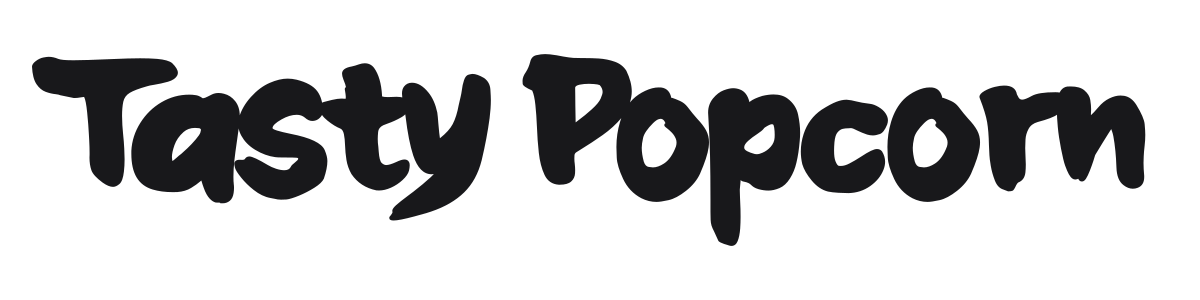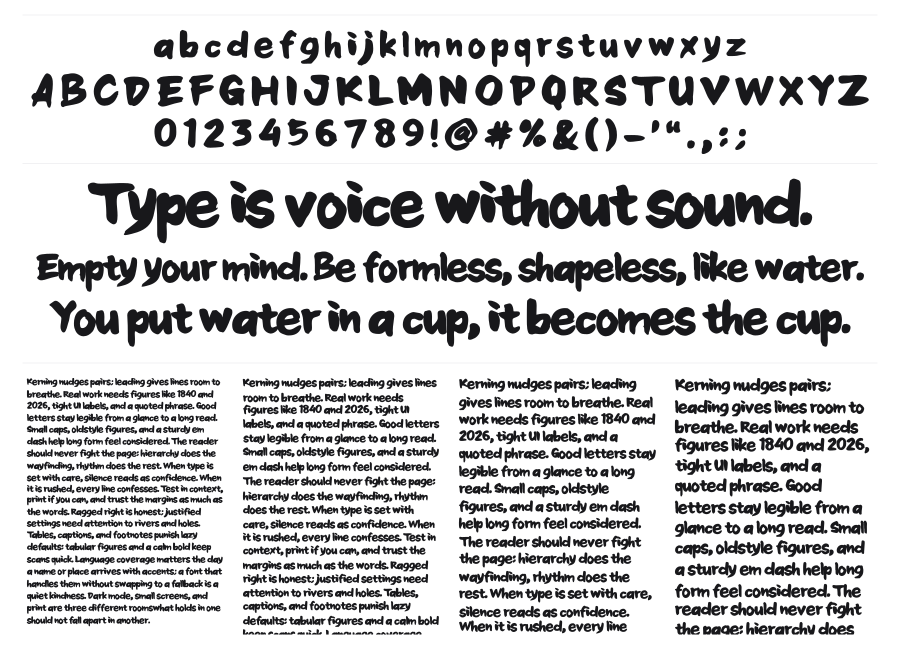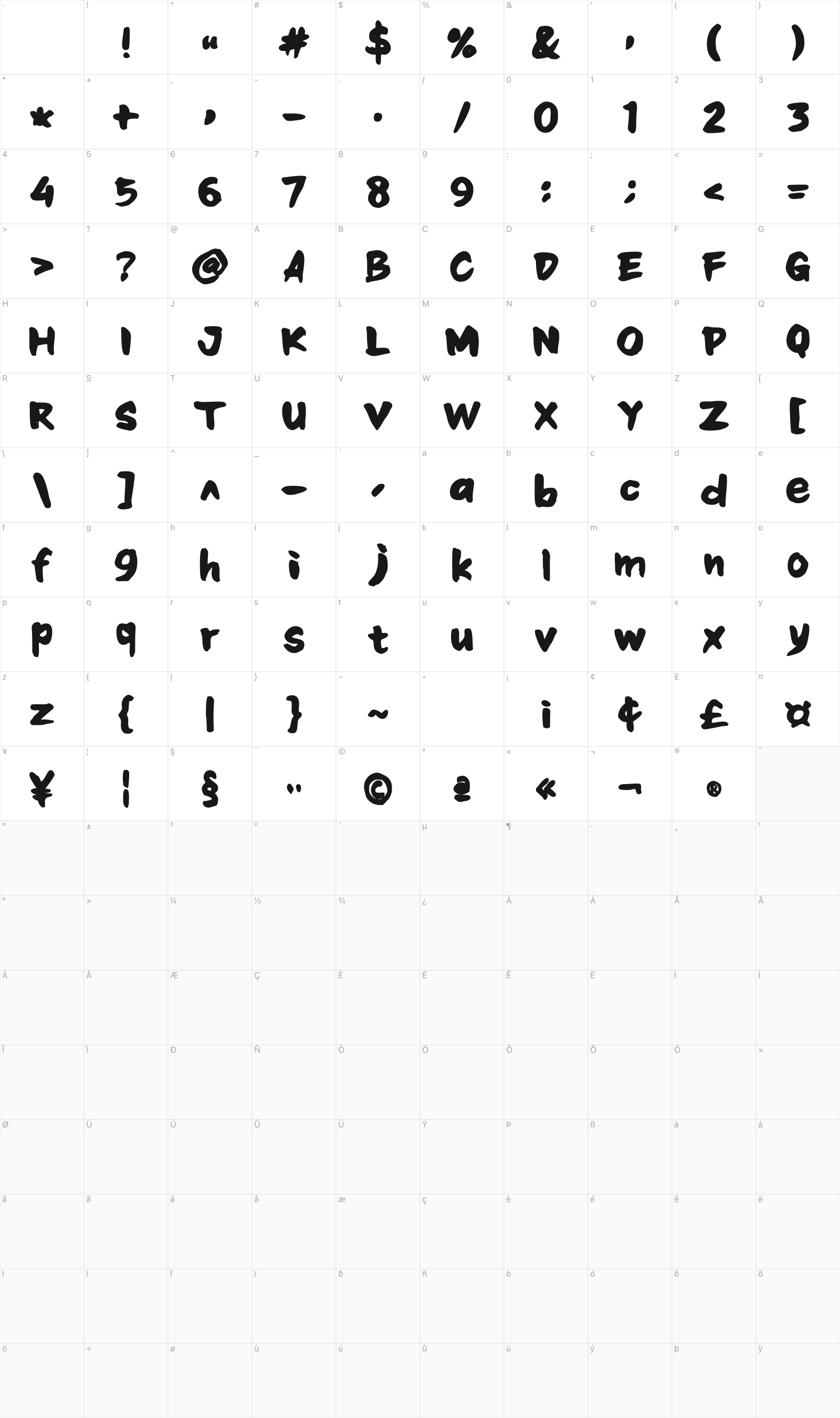
Tasty Popcorn
Tasty Popcorn is a bold, chunky brush script with thick hand-painted strokes and a lively, informal energy. The rounded, slightly wobbly characters feel like they were dashed off with a fat marker, which gives packaging and signage an immediate sense of fun. Great for food brands, kids' products, and anything that needs to feel approachable rather than polished.